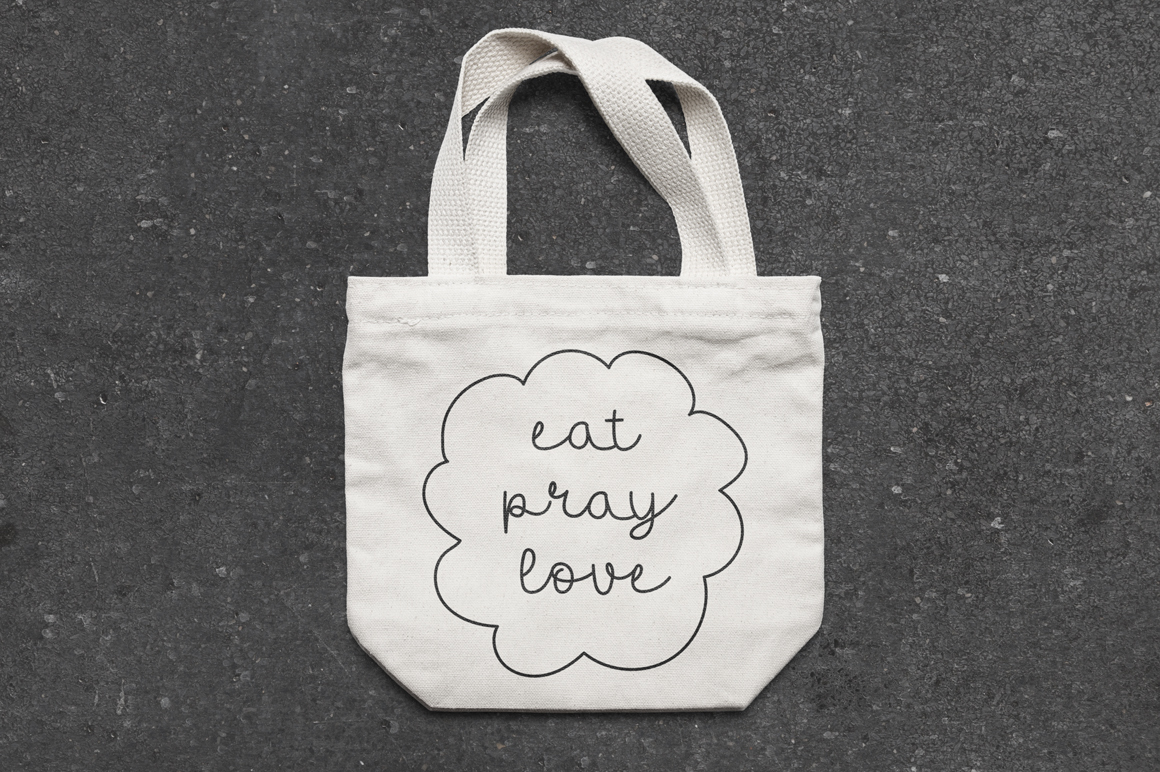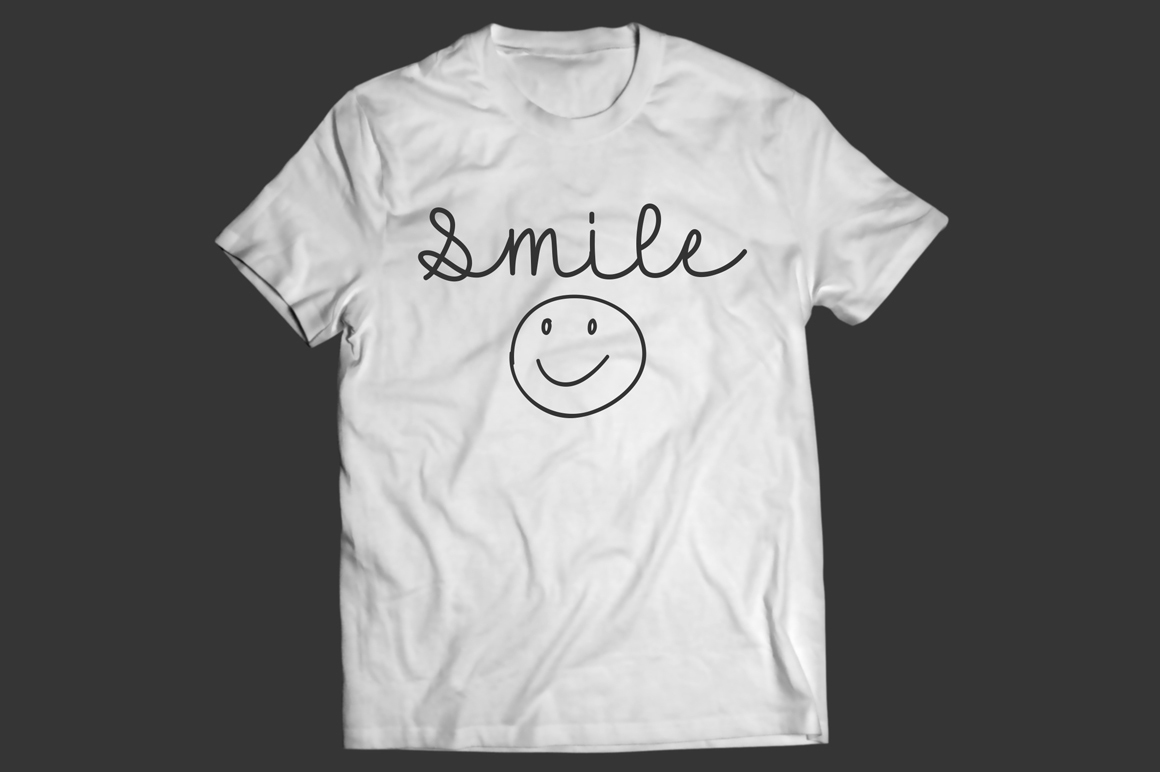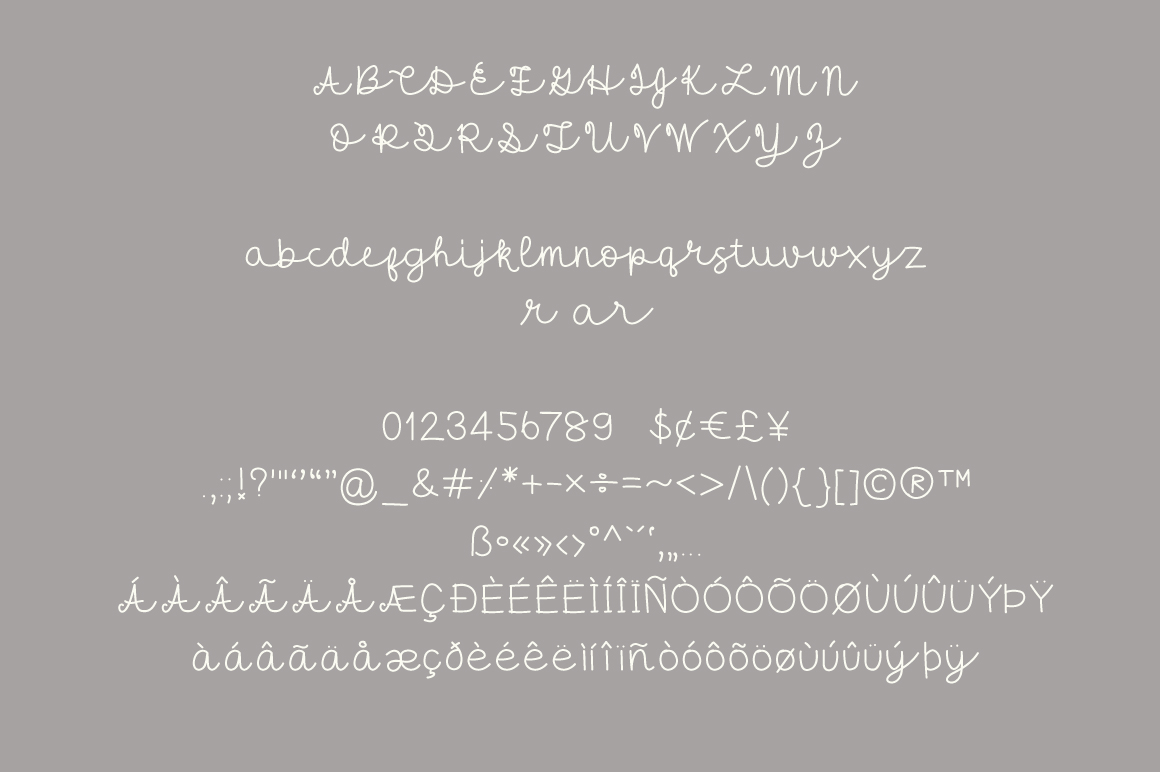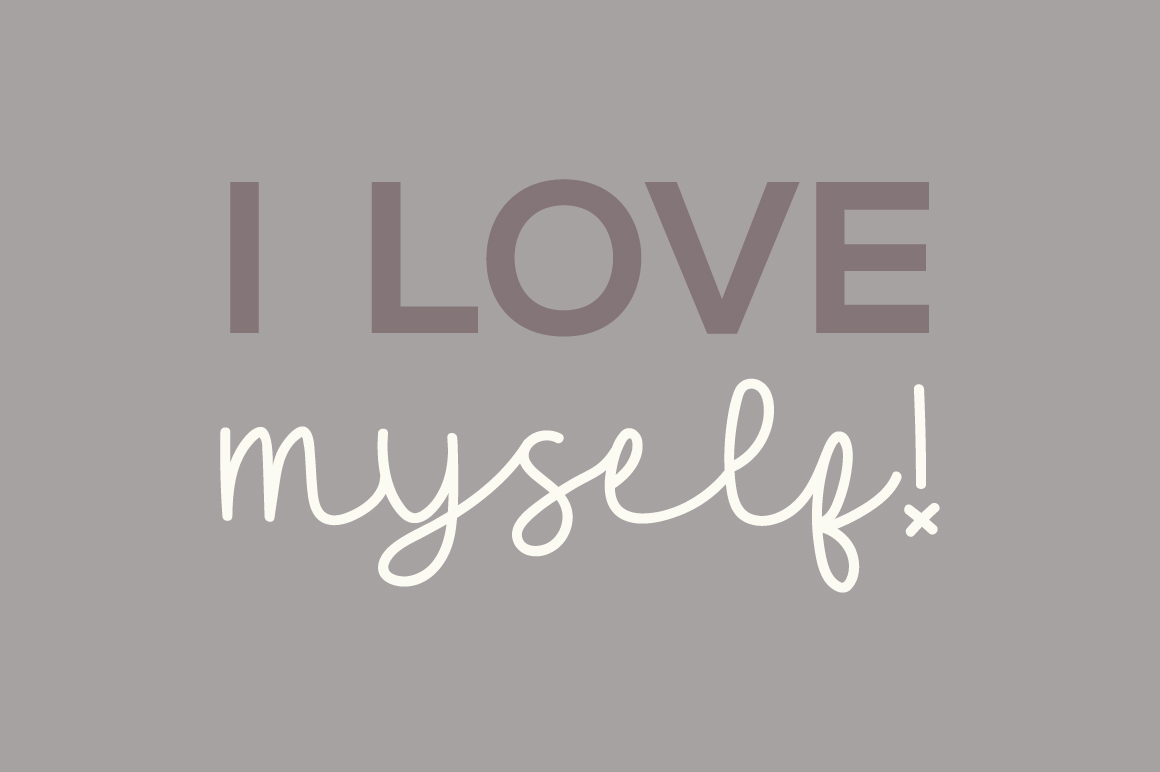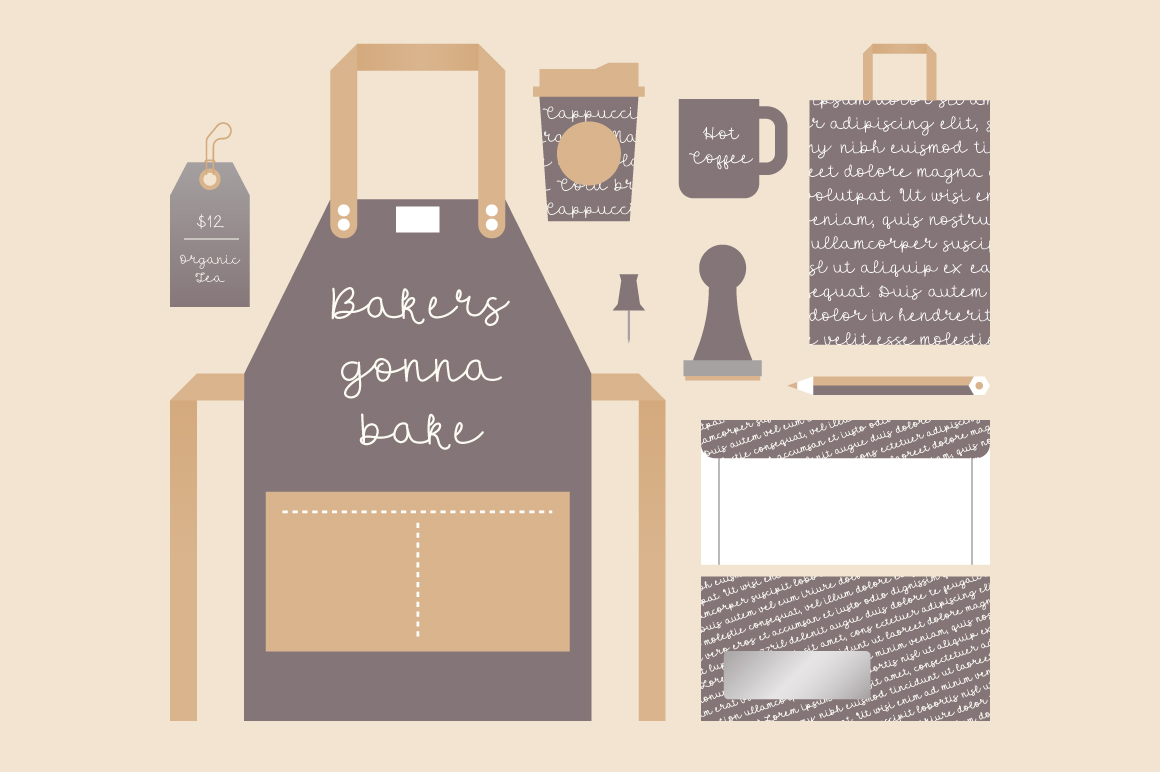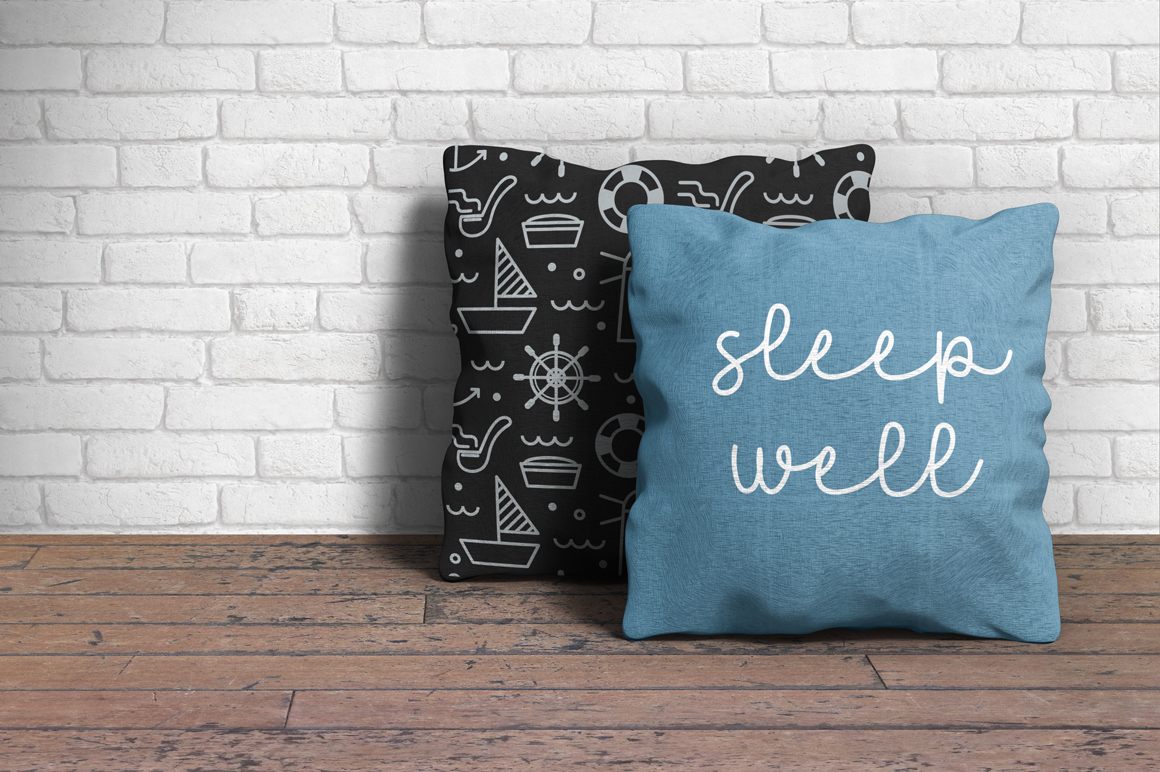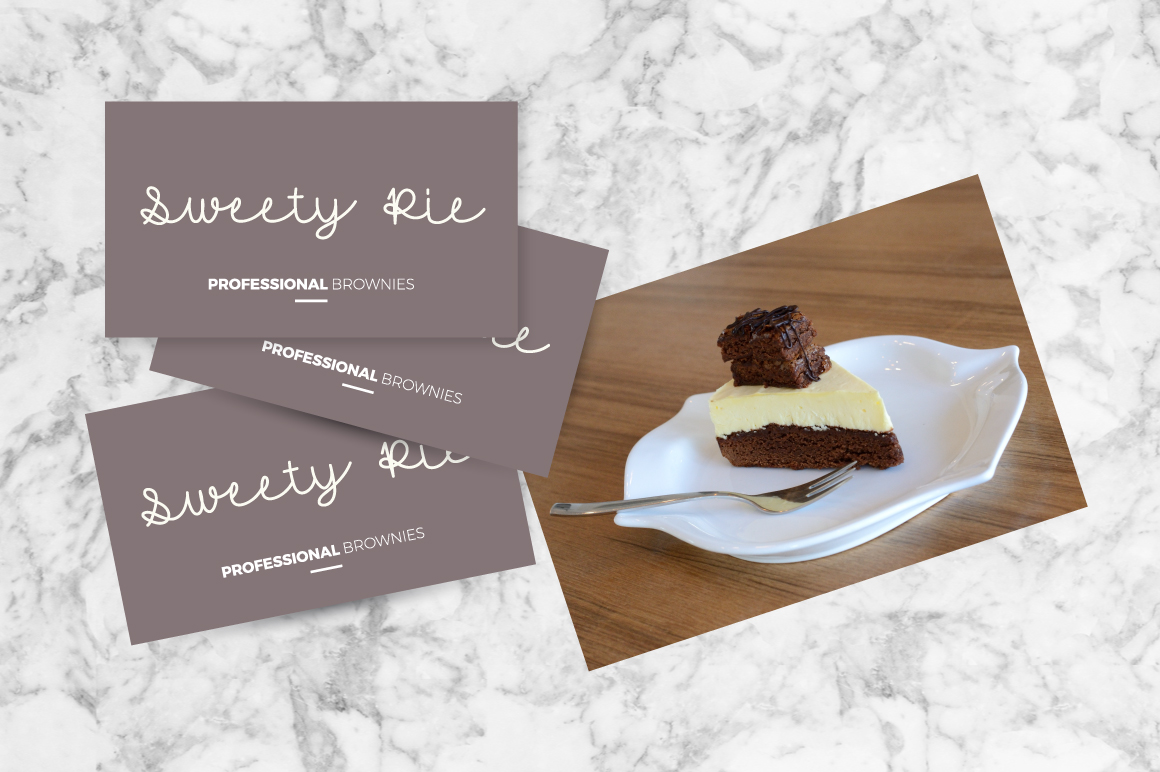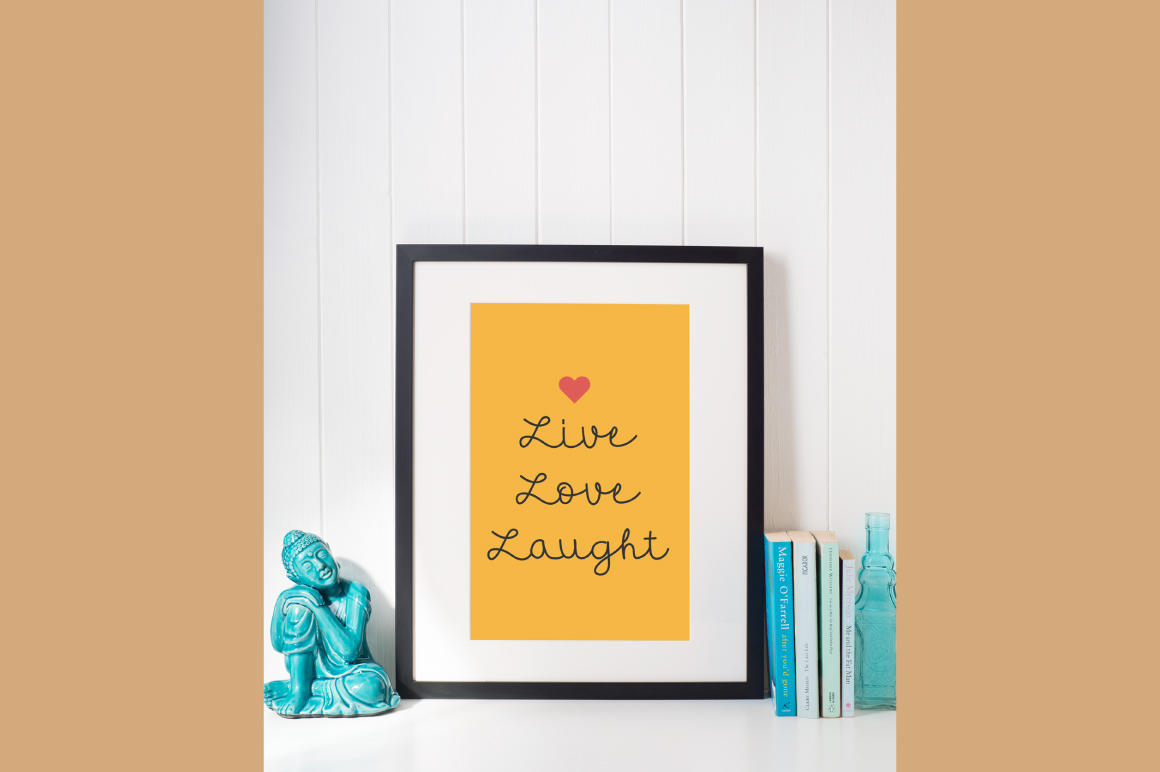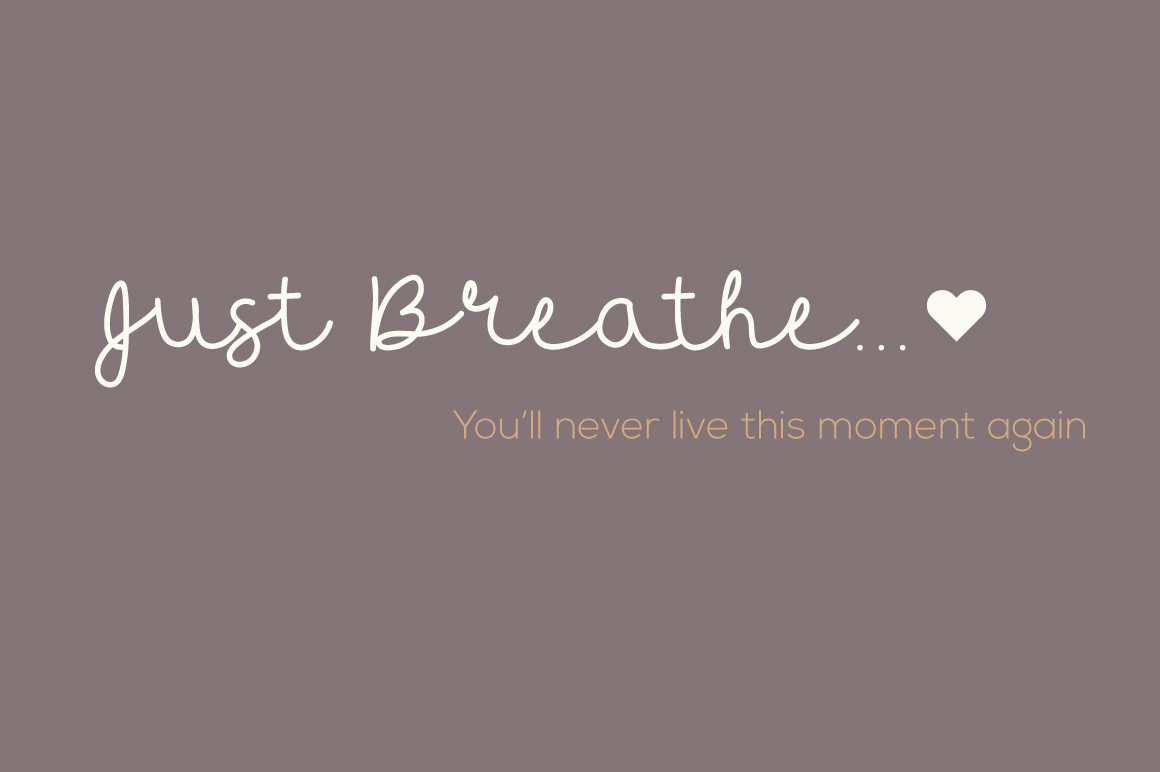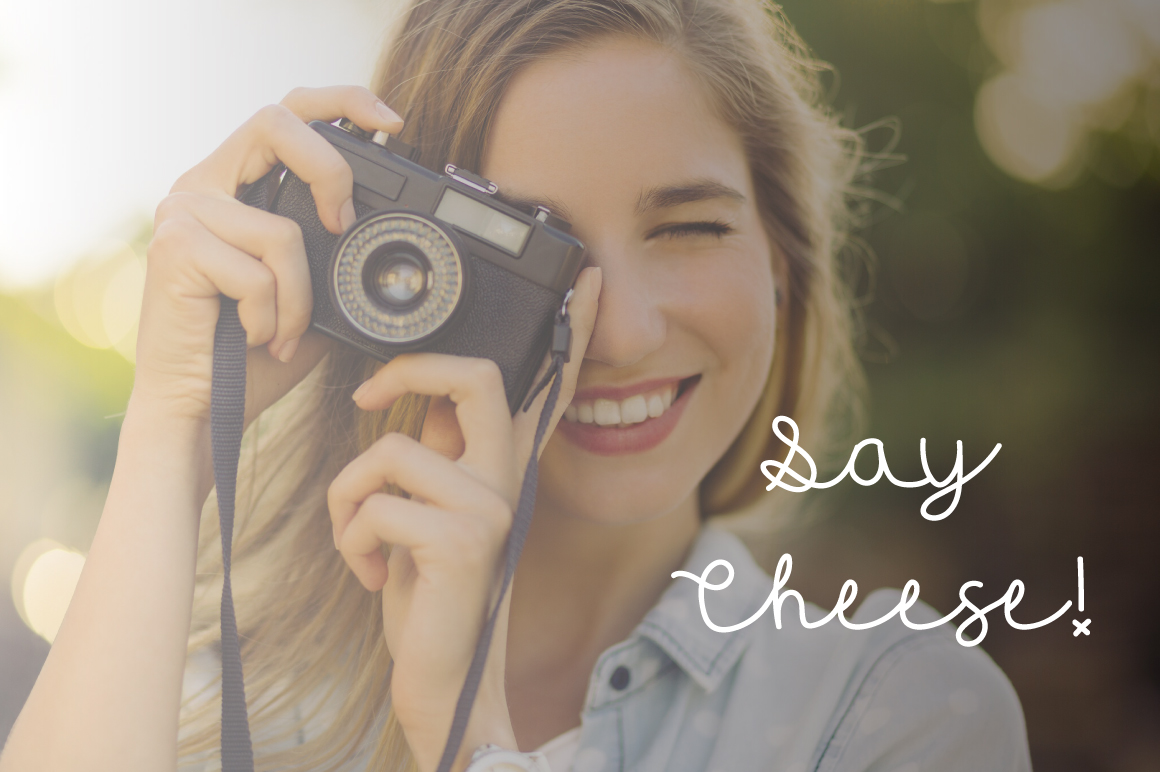
Hello Chiang Mai Font
About Hello Chiang Mai Font
Hello Chiang Mai is a mono line script font that has a stylish, relaxed and good vibe. It features many kerning pairs to make sure all characters connect smoothly.
The name Hello Chiang Mai was inspired by the name of Chiang Mai city in Thailand.